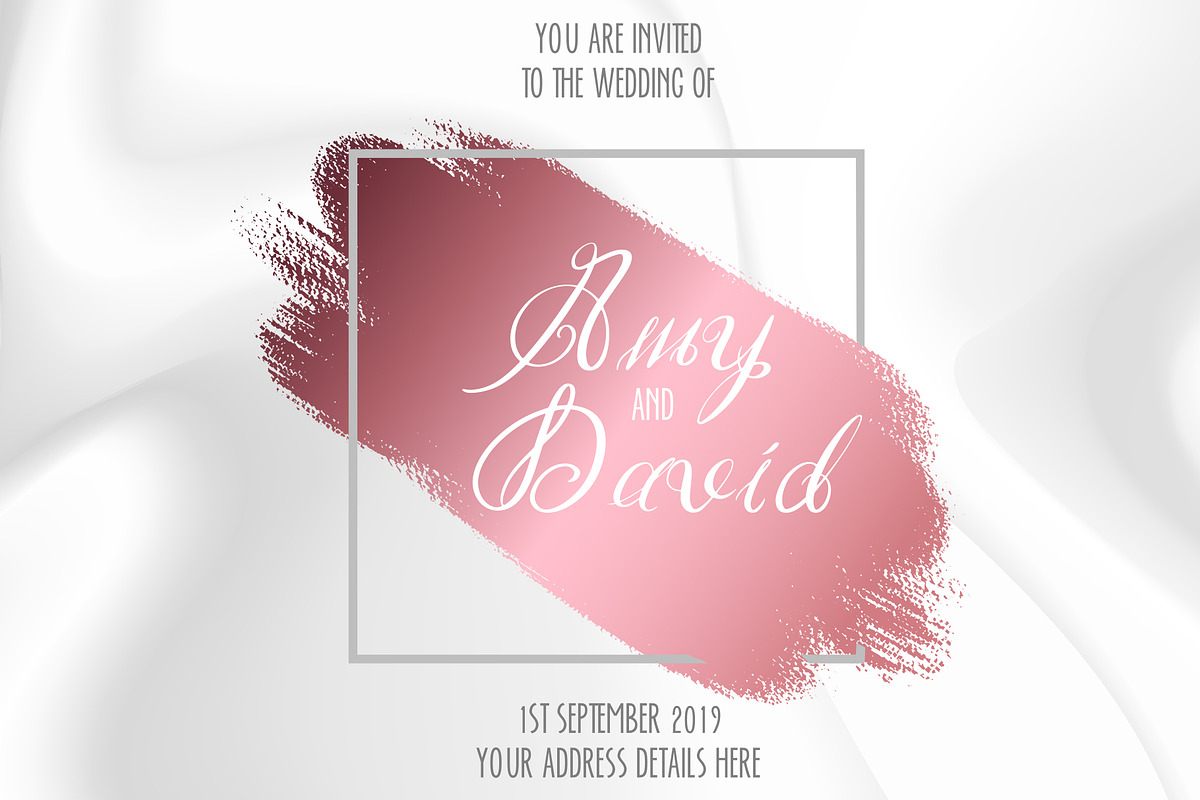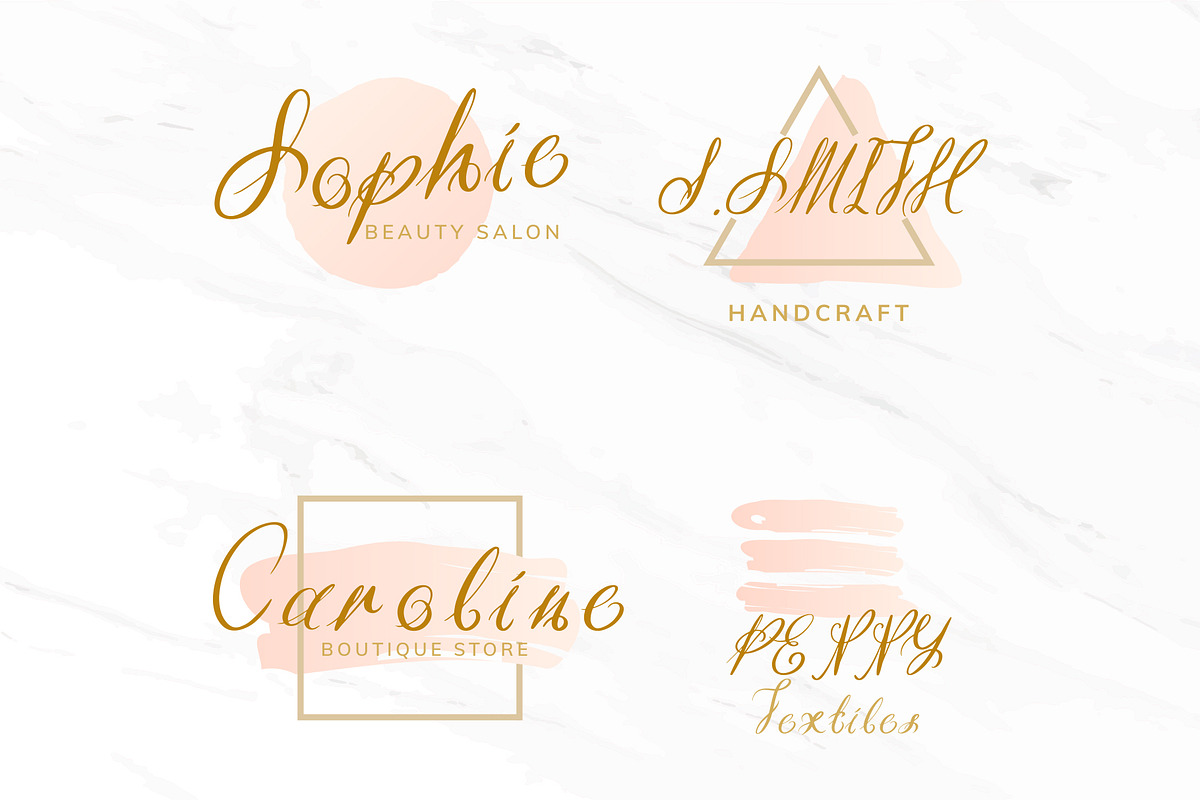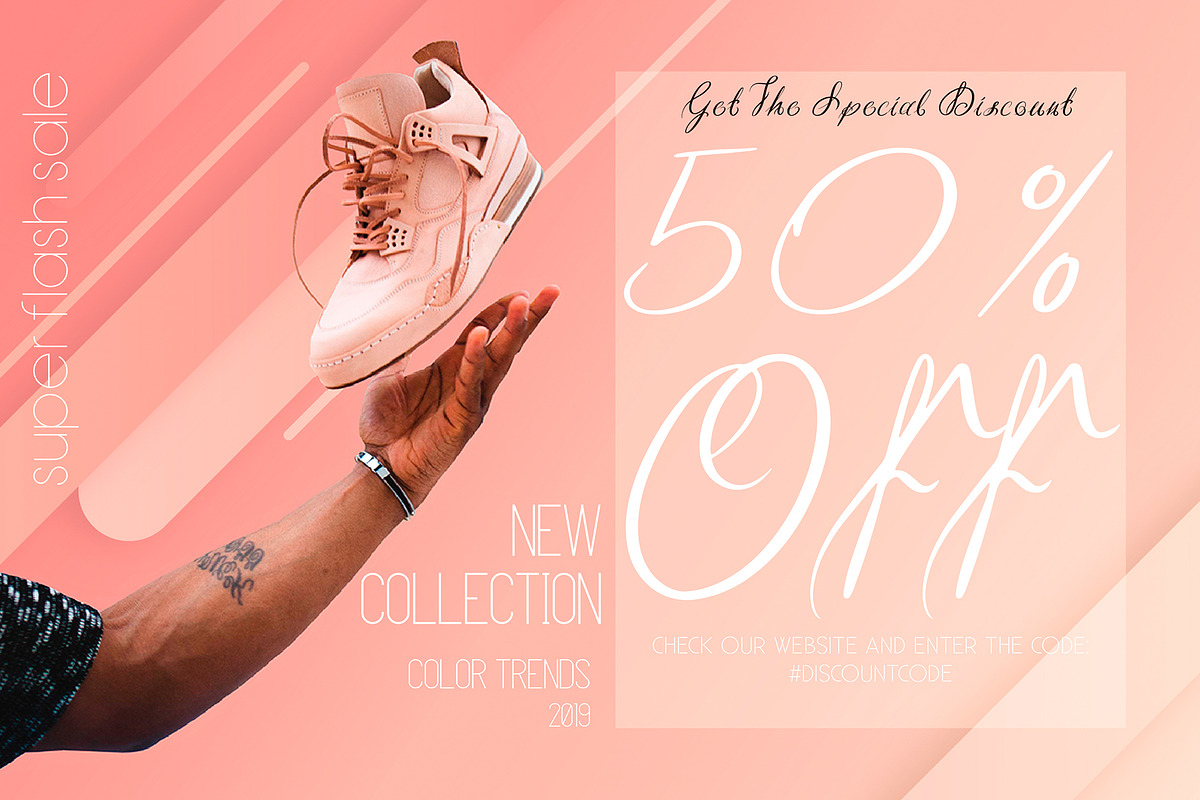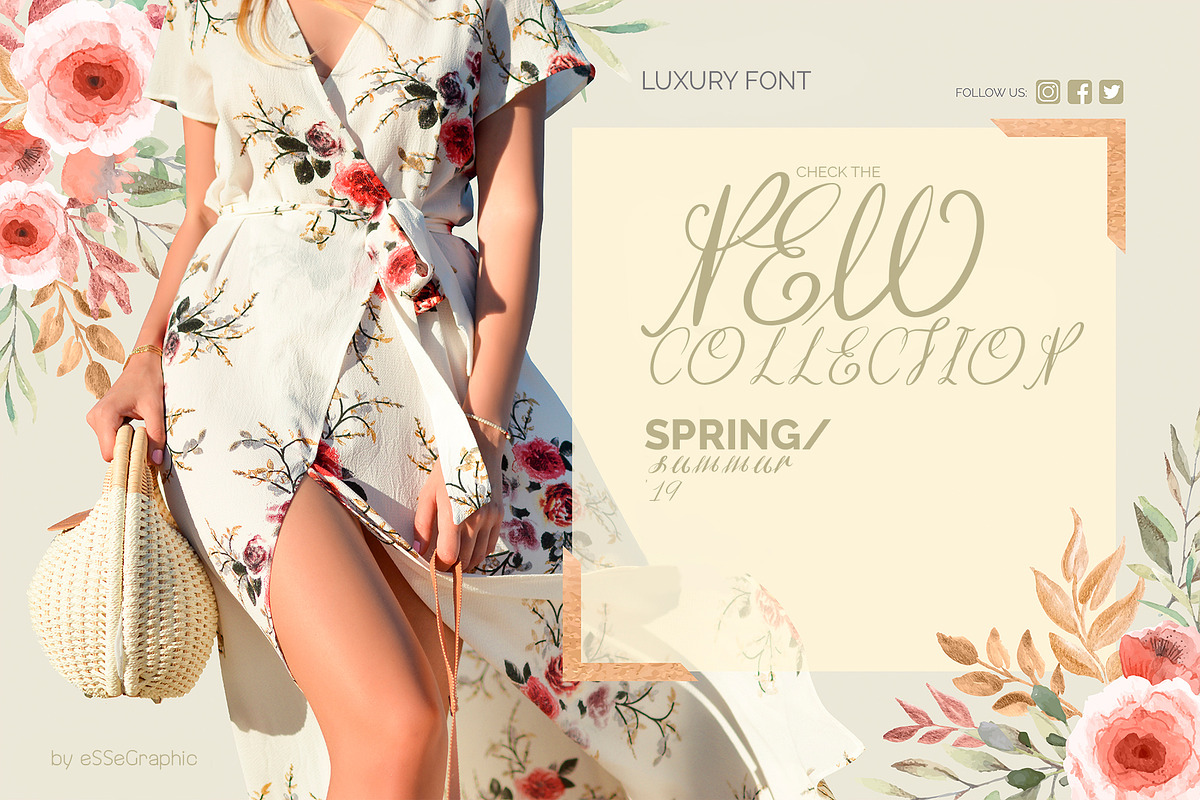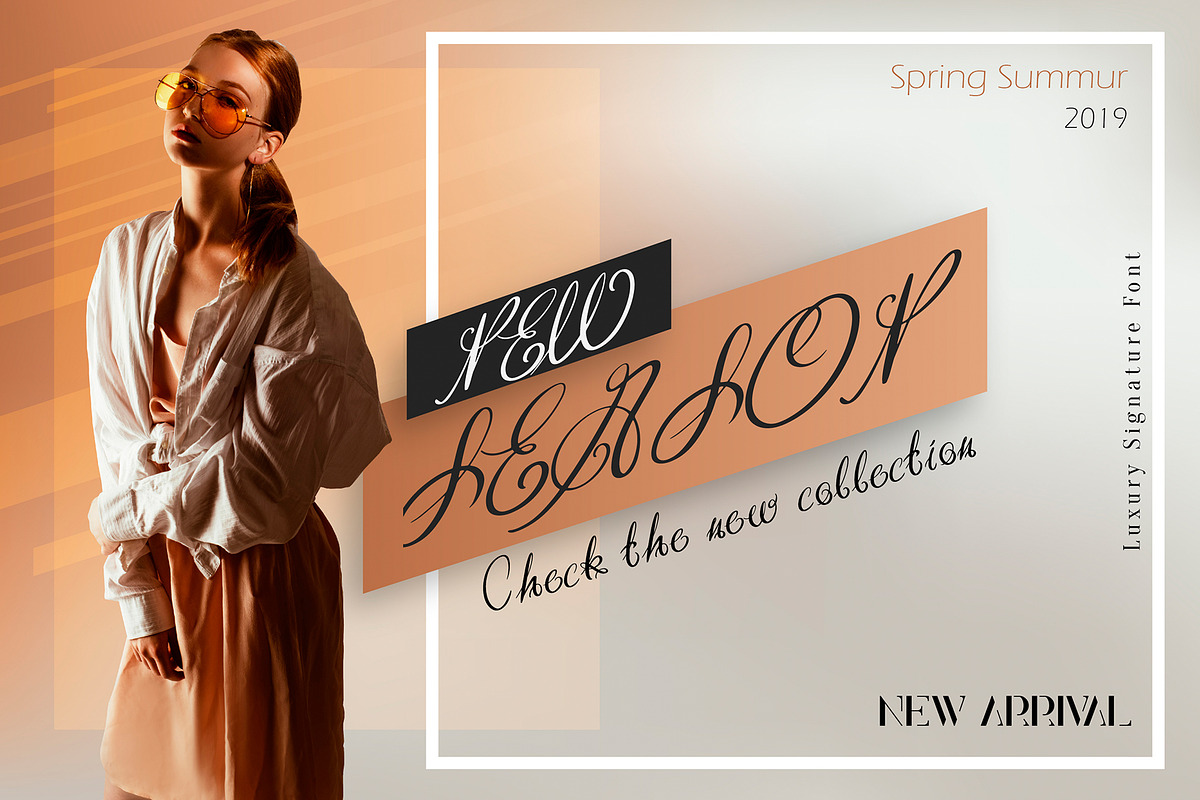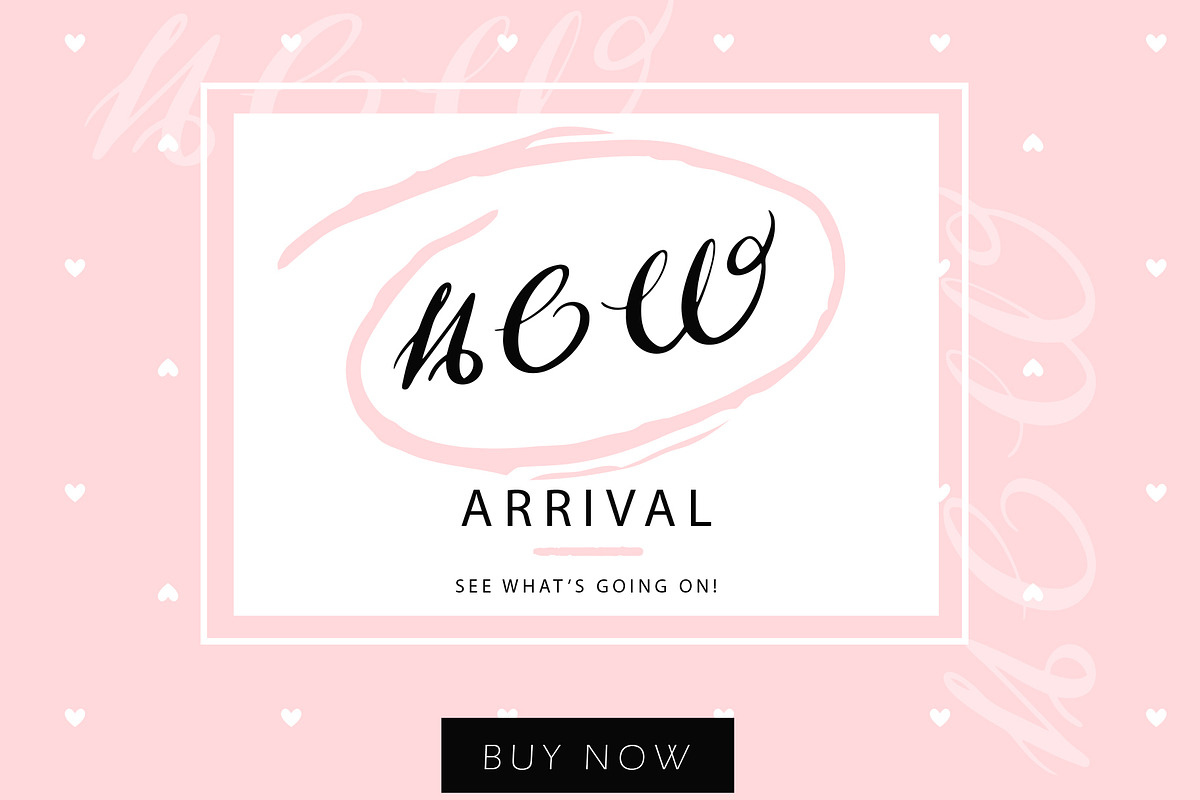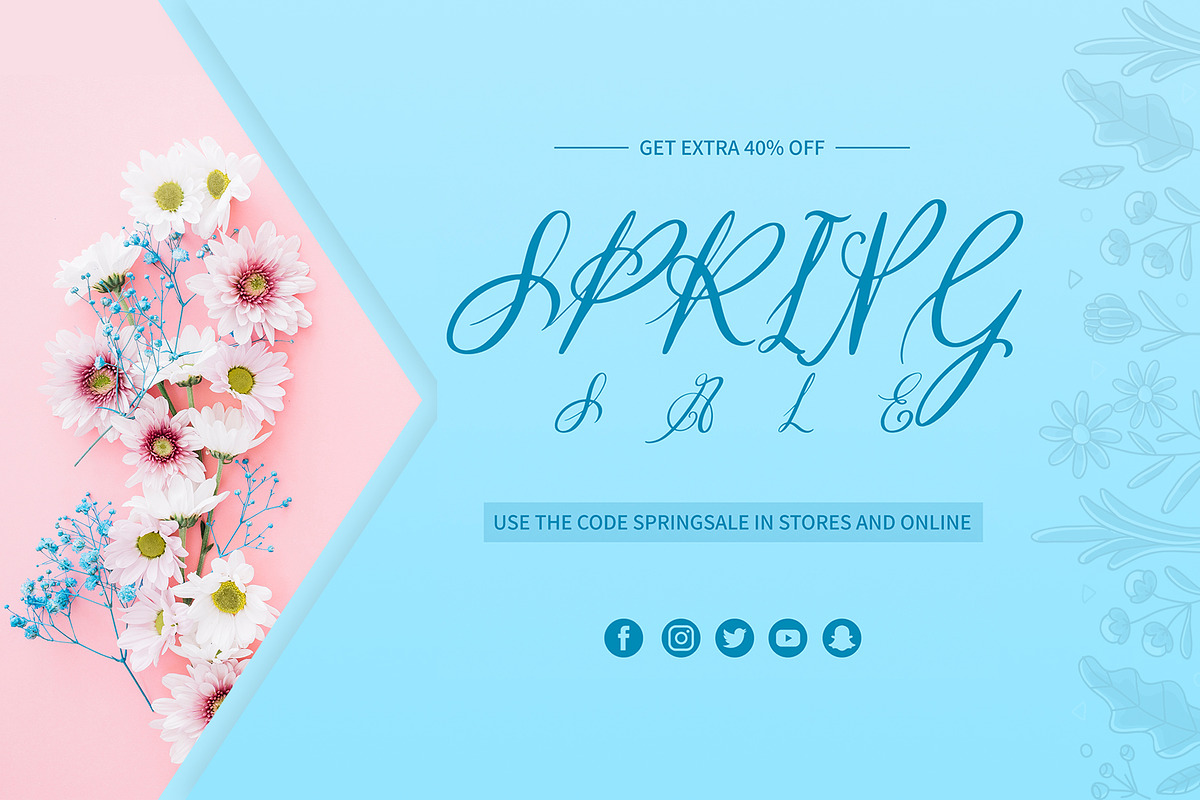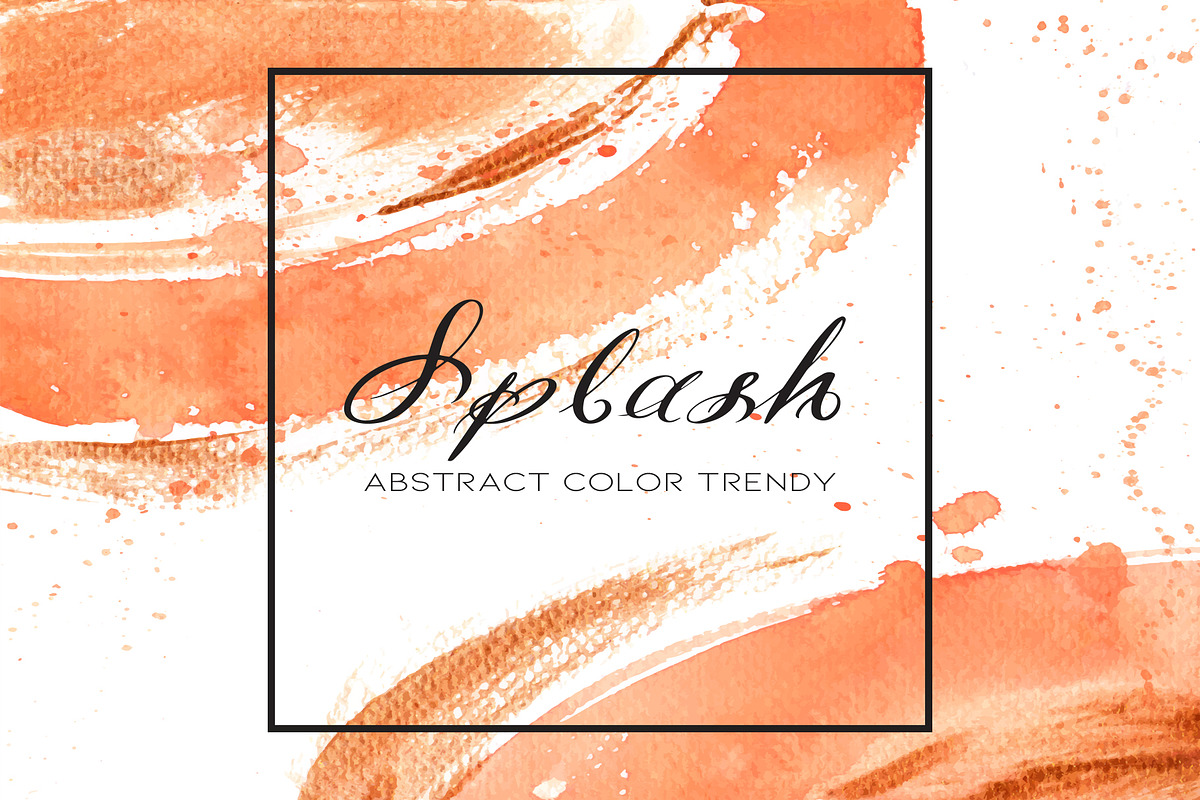
Efeymen Luxury Signature Font
EfeymenLuxury Signature Font
With this magnificent font, which is completely hand-drawn, you will give your work an extraordinary design. Ideal for creating a logo. All weeks and numbers have SVG extensions.
You can be sure that your work will be a great inspiration.
Why Efeymen Luxury Signature Font is worth a look